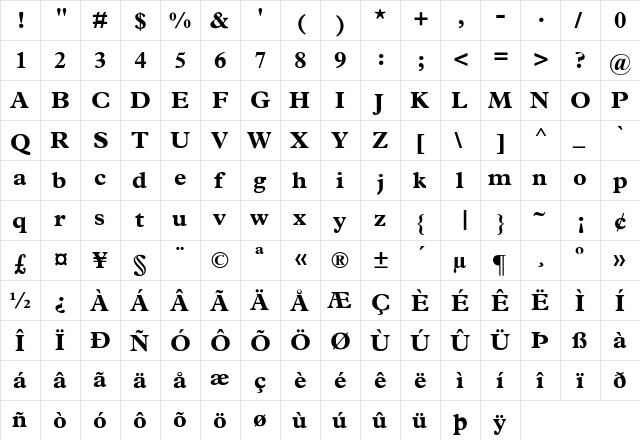
MPlantin-Bold Regular
MPlantin-Bold is a composed and adaptable typeface that performs quietly and consistently across a wide range of design contexts. Its bold stroke weight gives it real presence on the page.